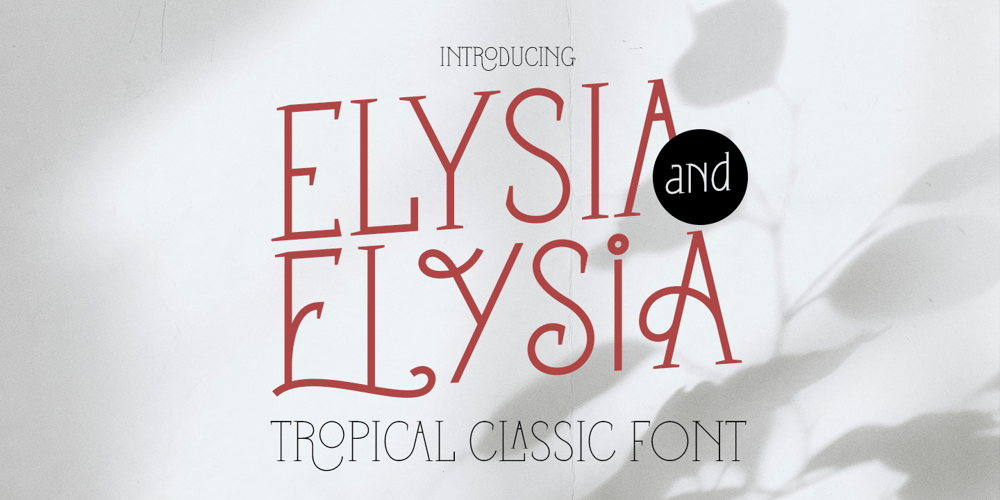
Elysia
Elysia font
Elysia Font Family was designed by Wahyu Rahmawan and published by Factory738. Elysia contains 4 styles and family package options. We present Elysia, a fresh two-faced serif with both MODERN and CLASSIC curves. Elysia is a split personality font that can be used for a variety of projects, including bold magazine imagery, wedding invitations, branding, poster design, and much more. 2 Weights (Light & Bold) 2 Styles (Modern & Classic) Basic Latin A-Z and a-z Numerals & Punctuation Stylistic Ligatures glyps Multilingual Support for ä ö ü Ä Ö Ü … Free updates and feature additions Thanks for looking, and I hope you enjoy it.